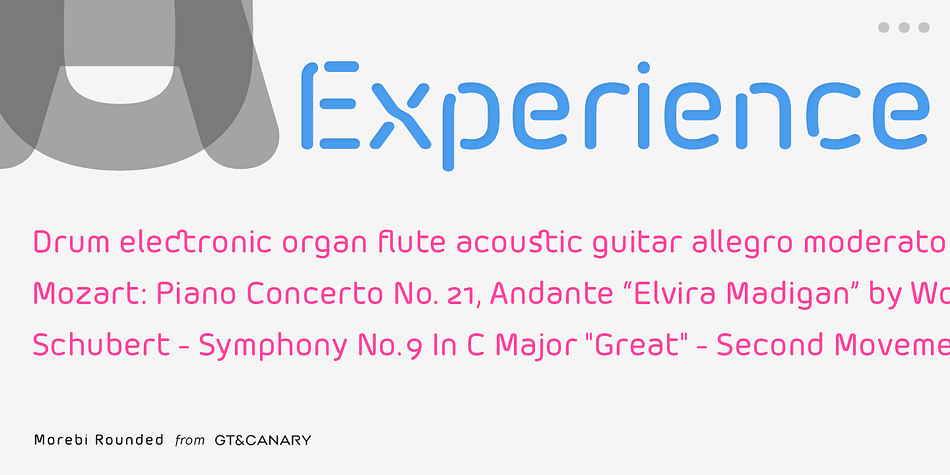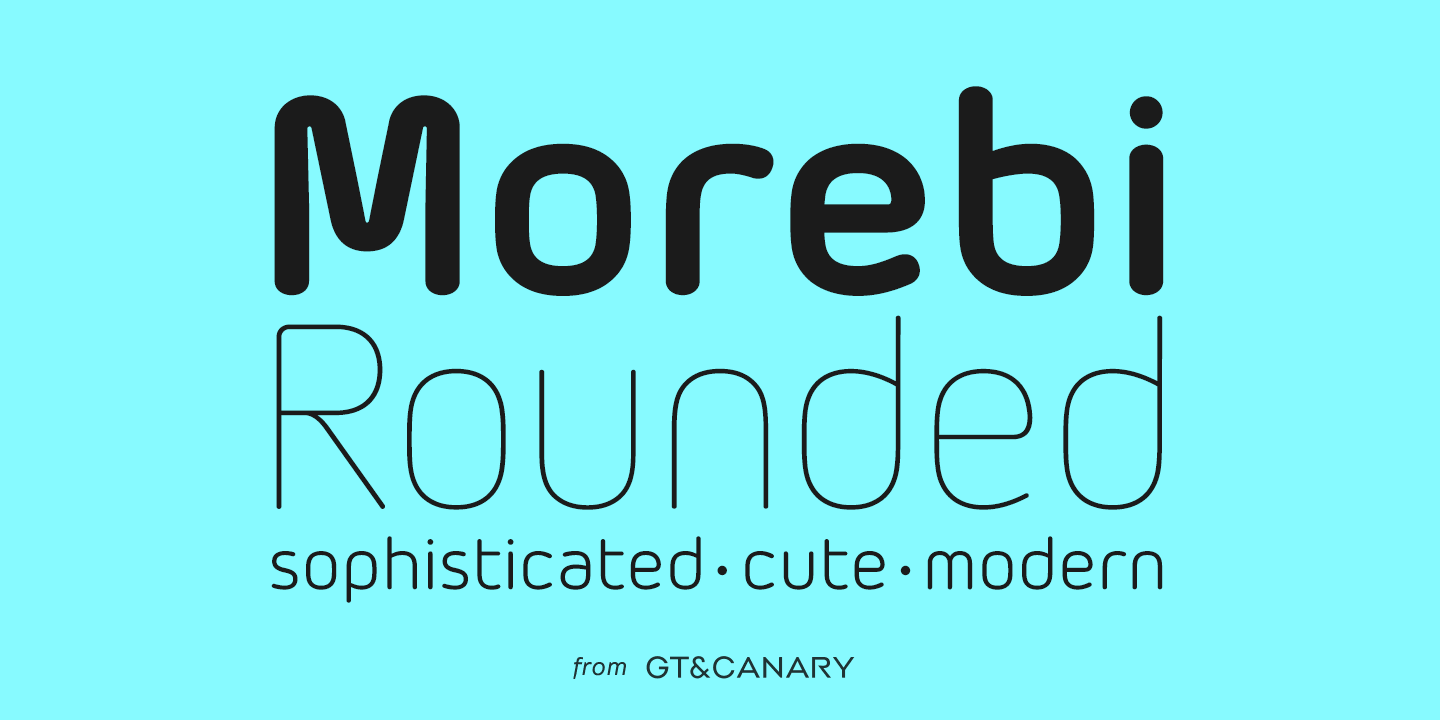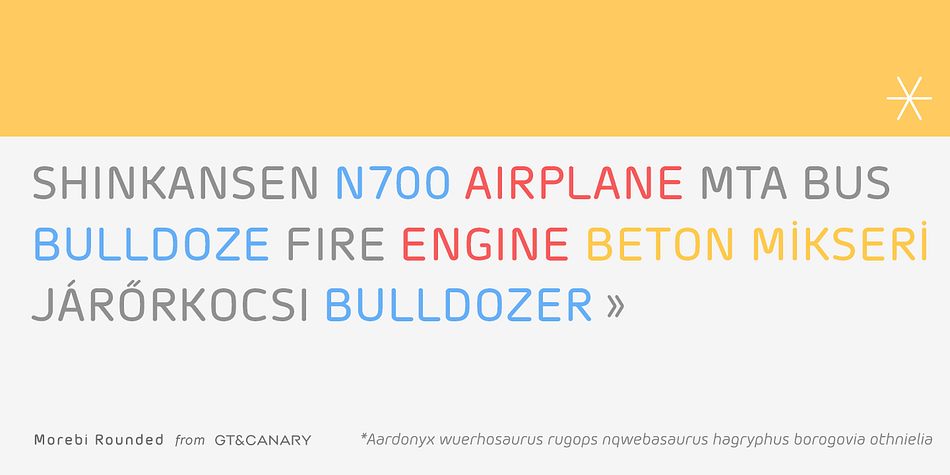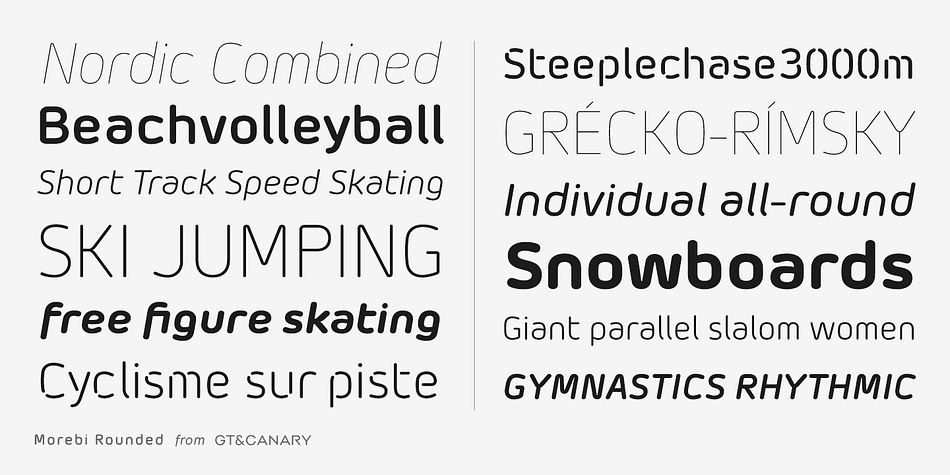
Designed by Takaaki Goto, Morebi Rounded is a sans serif and stencil font family. This typeface has sixteen styles and was published by GT&CANARY.
Sophisticated. Cute. Modern. Morebi Rounded is a rounded font family with a simple geometric structure. Its clean yet friendly style lends itself well to brand building.
Morebi Rounded is a neutral font that’s suited for web, print, packaging and signage applications. From food to hi-tech industry, logo to long text, Morebi Rounded’s flexibility allows for easy expression with a contemporary viewpoint.
The family contains six different weights and matching italics plus two stencil version weights. Both upright and italics are ideal for use in display applications.